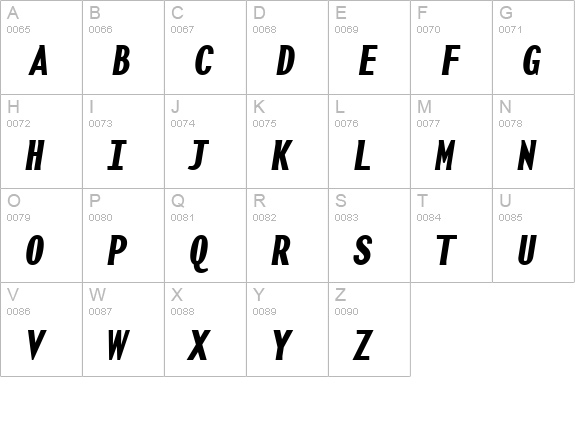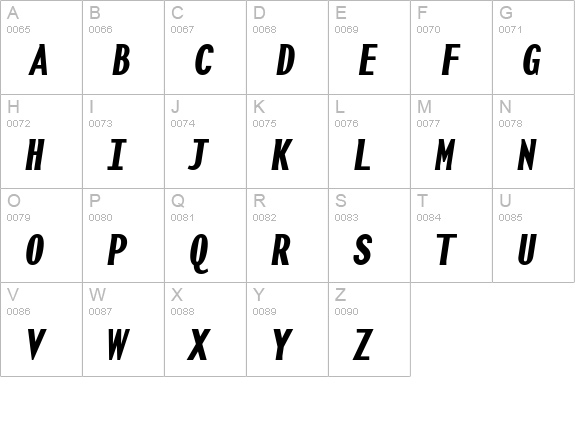
BaseMonoNarrowBoldItalic Bold Italic Font Details
BaseMonoNarrowBoldItalic Bold Italic is a strong, high-contrast, italic variant in the BaseMonoNarrowBoldItalic typeface family \xE2\x80\x94 well suited to headlines, attention-grabbing titles, and strong calls-to-action.
Introducing BaseMonoNarrowBoldItalic Bold Italic font, a sleek and modern typeface designed for making a bold statement with a touch of elegance. This font exudes confidence and sophistication, perfect for adding a touch of flair to your design projects. The bold italic style adds a dynamic and eye-catching element to your text, making it stand out in any context. What's even better is that BaseMonoNarrowBoldItalic Bold Italic font is available for free download at FontsMarket.com. You can easily enhance your creations with this stylish and versatile font without breaking the bank. Whether you're working on branding, advertising, or any other design project, this font is sure to make a lasting impression. Don't miss out on the opportunity to elevate your designs with BaseMonoNarrowBoldItalic Bold Italic font. Download it for free today and unleash your creativity like never before!